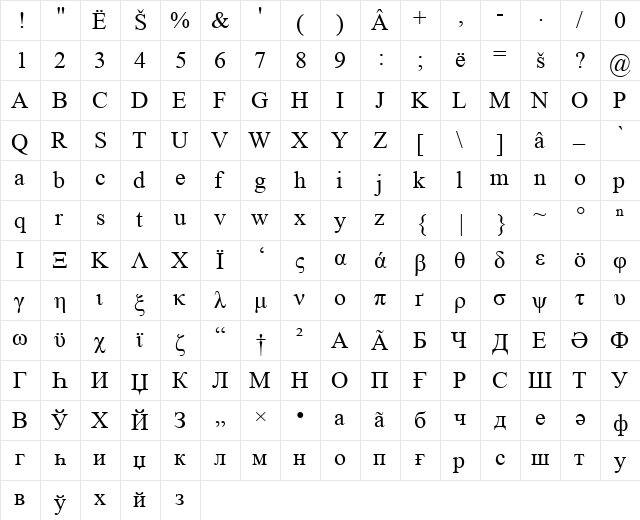
Euransi e Ewnaforzune Regular
Design Context for Euransi e Ewnaforzune Typeface
Euransi e Ewnaforzune is a composed and adaptable typeface that performs quietly and consistently across a wide range of design contexts.